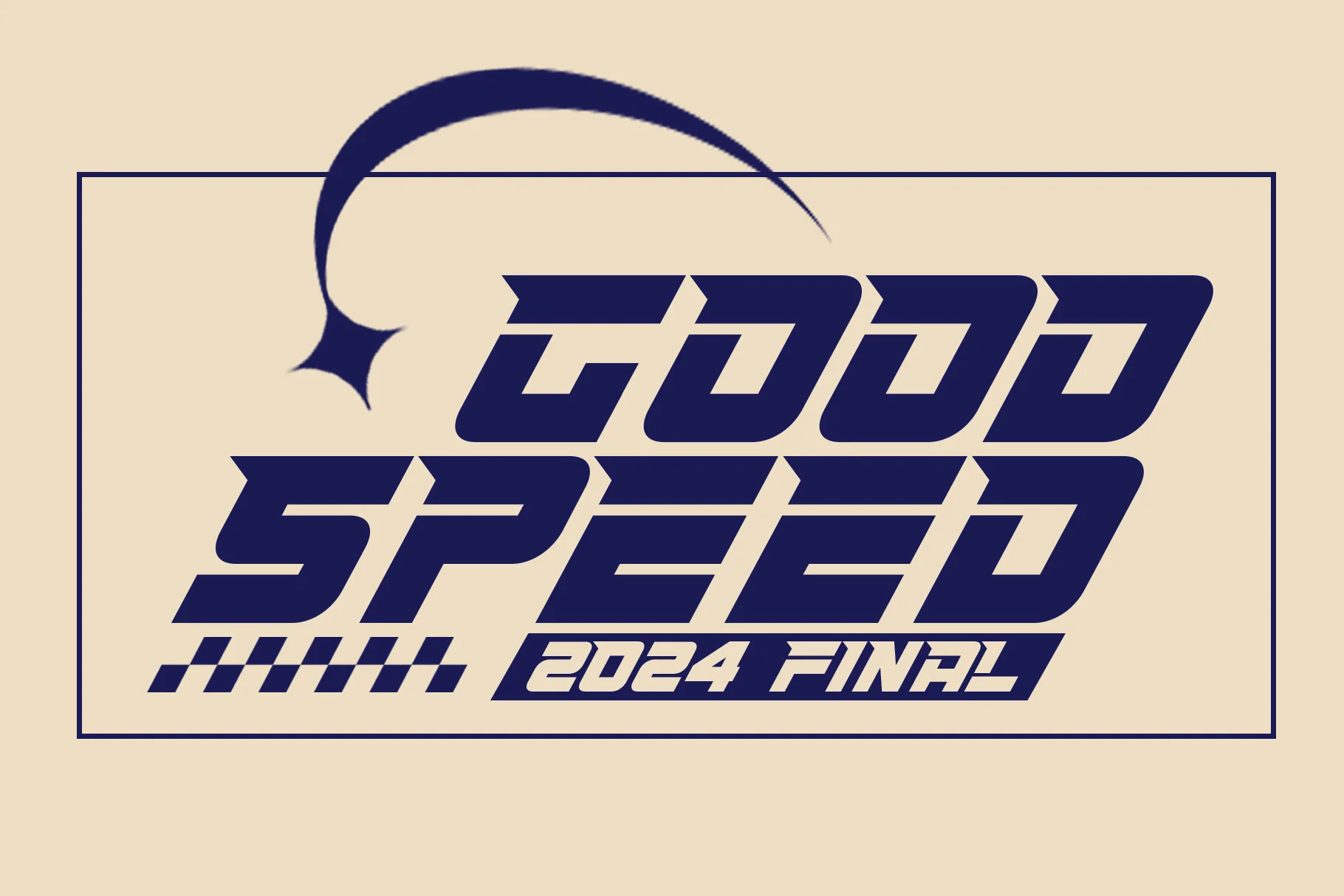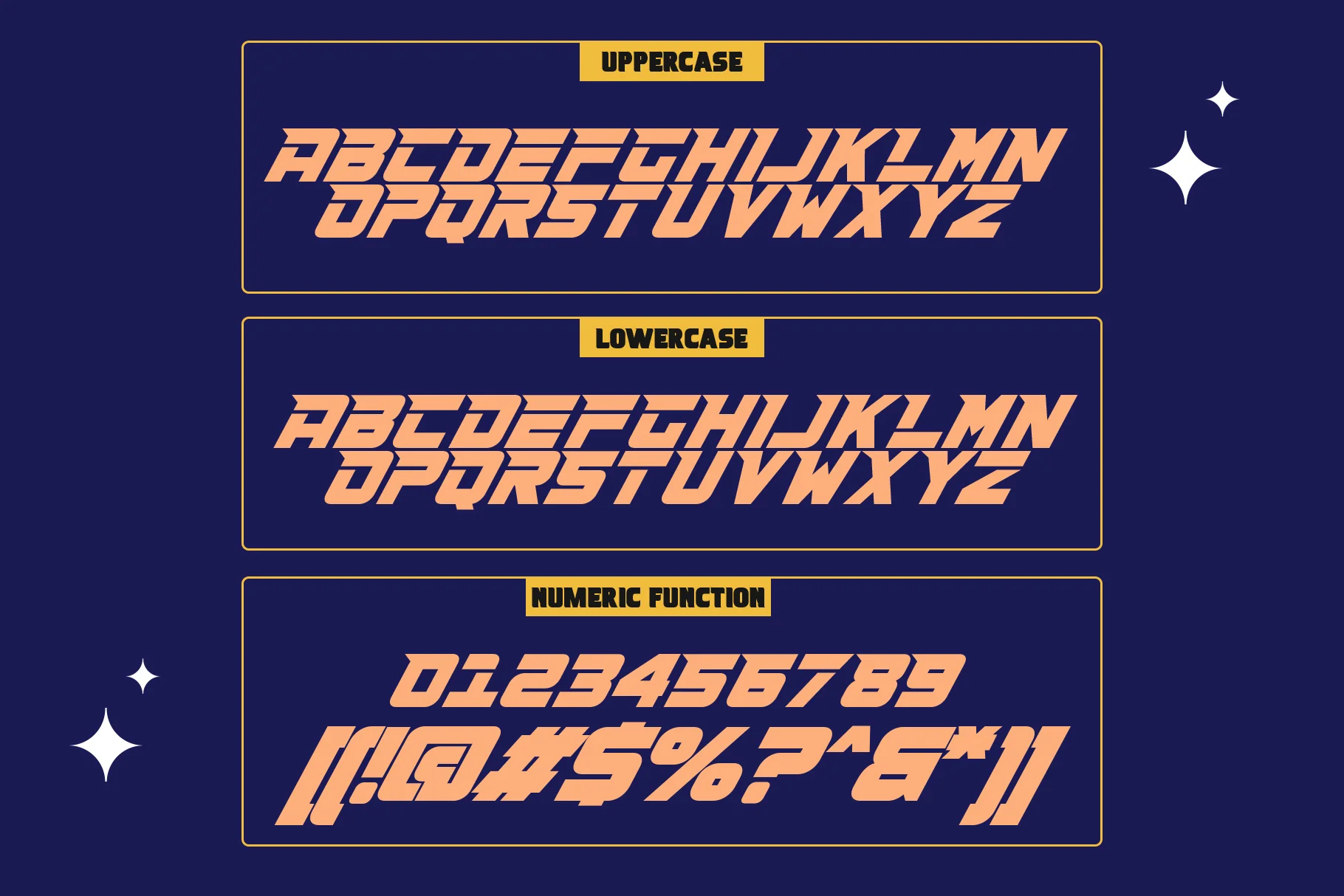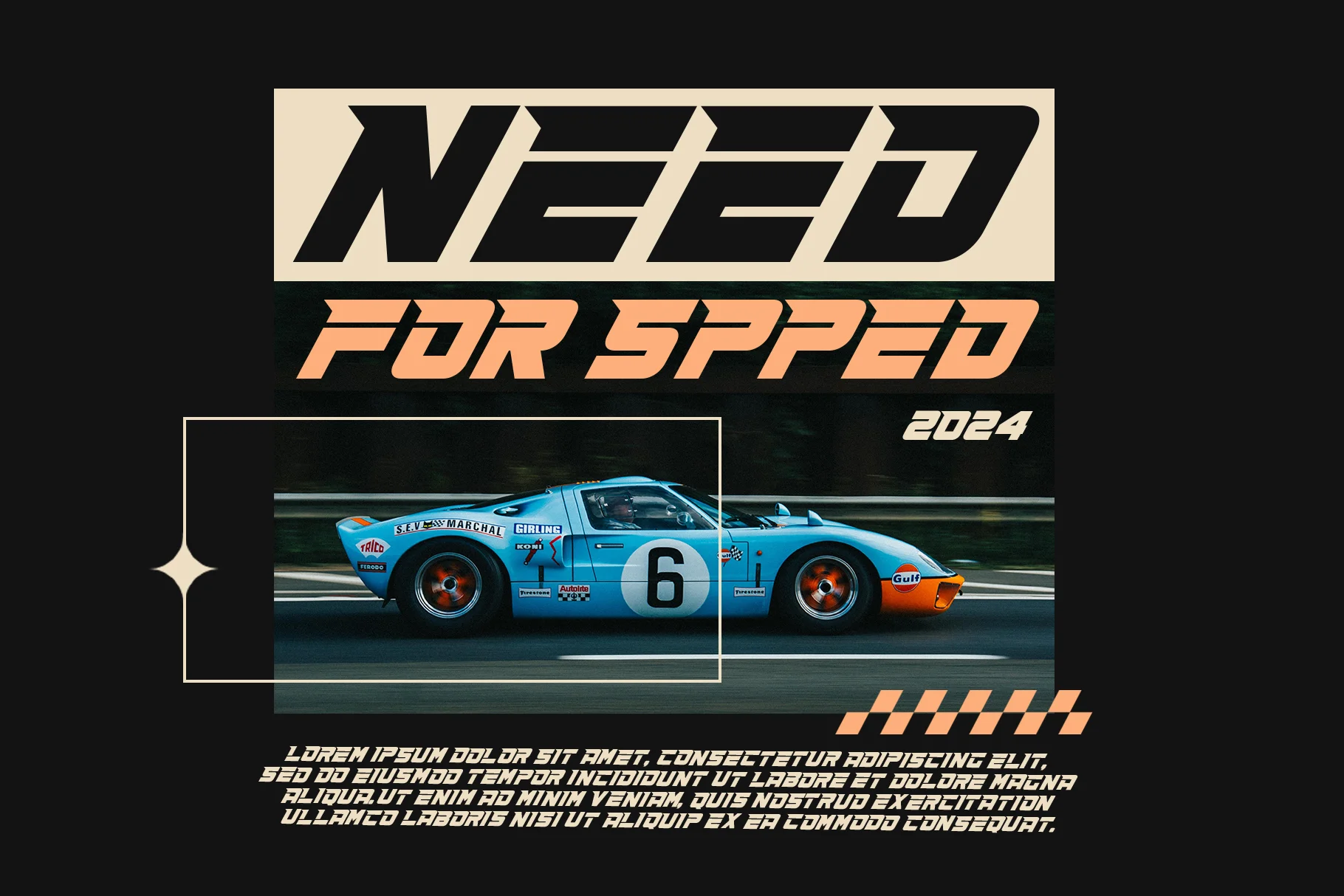
Space Race
- Spacing Expanded
Space Race is a futuristic, bold sans serif display font with sharp, dynamic, and speed-oriented characters. Its letterforms are dominated by beveled angles, diagonal cuts, and sharp edges, creating a technological, modern, and aggressive impression.
Space Race's distinctive character is evident in its condensed, forward-slanted letter structure, conveying a sense of movement, progress, and high energy—as if representing the world of racing, sci-fi, and future technology. The custom details on each character make this font unique and visually powerful, making it perfect as a design focal point.
Despite its expressive, futuristic style, Space Race maintains legibility with consistent, solid letter proportions, especially at large sizes.